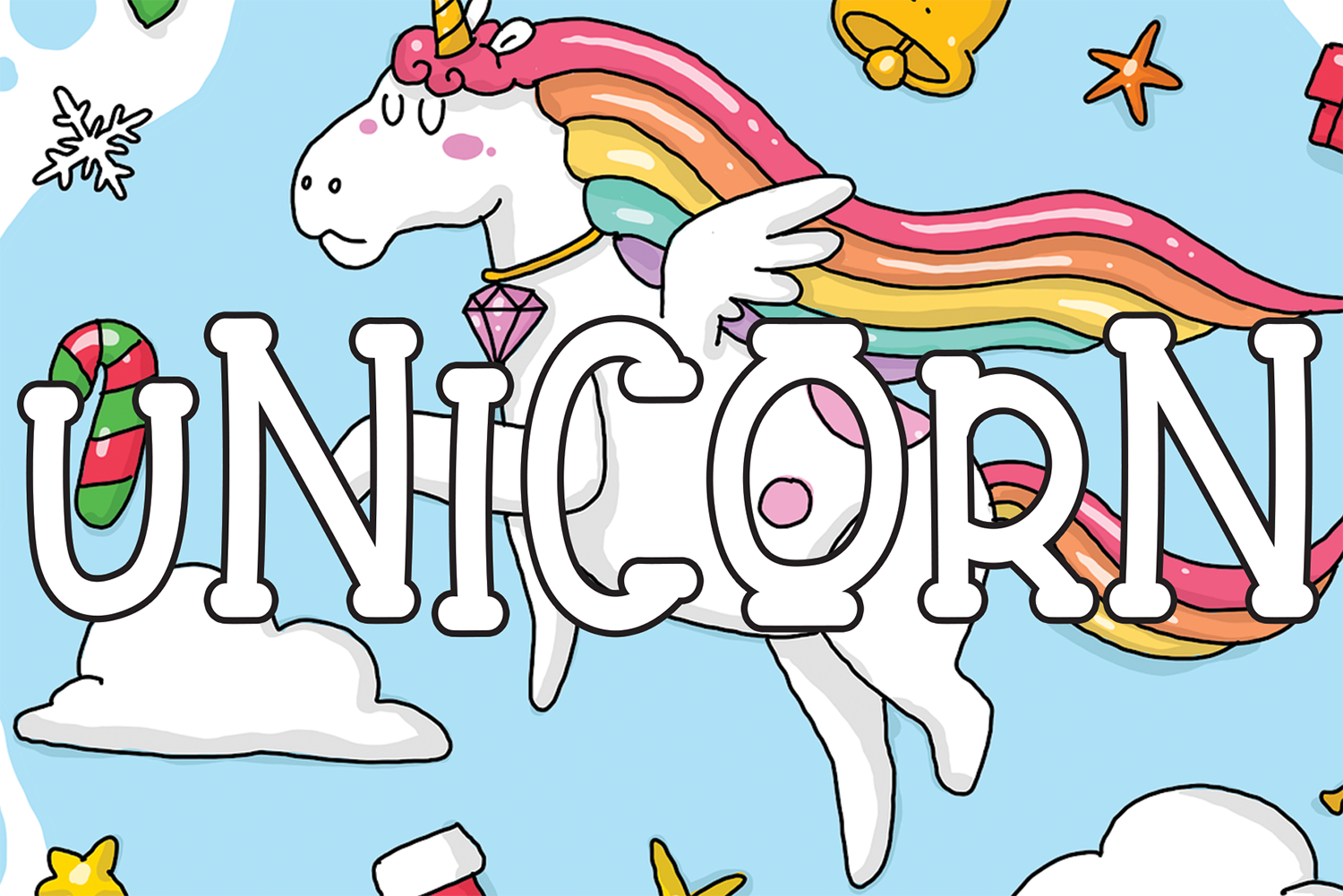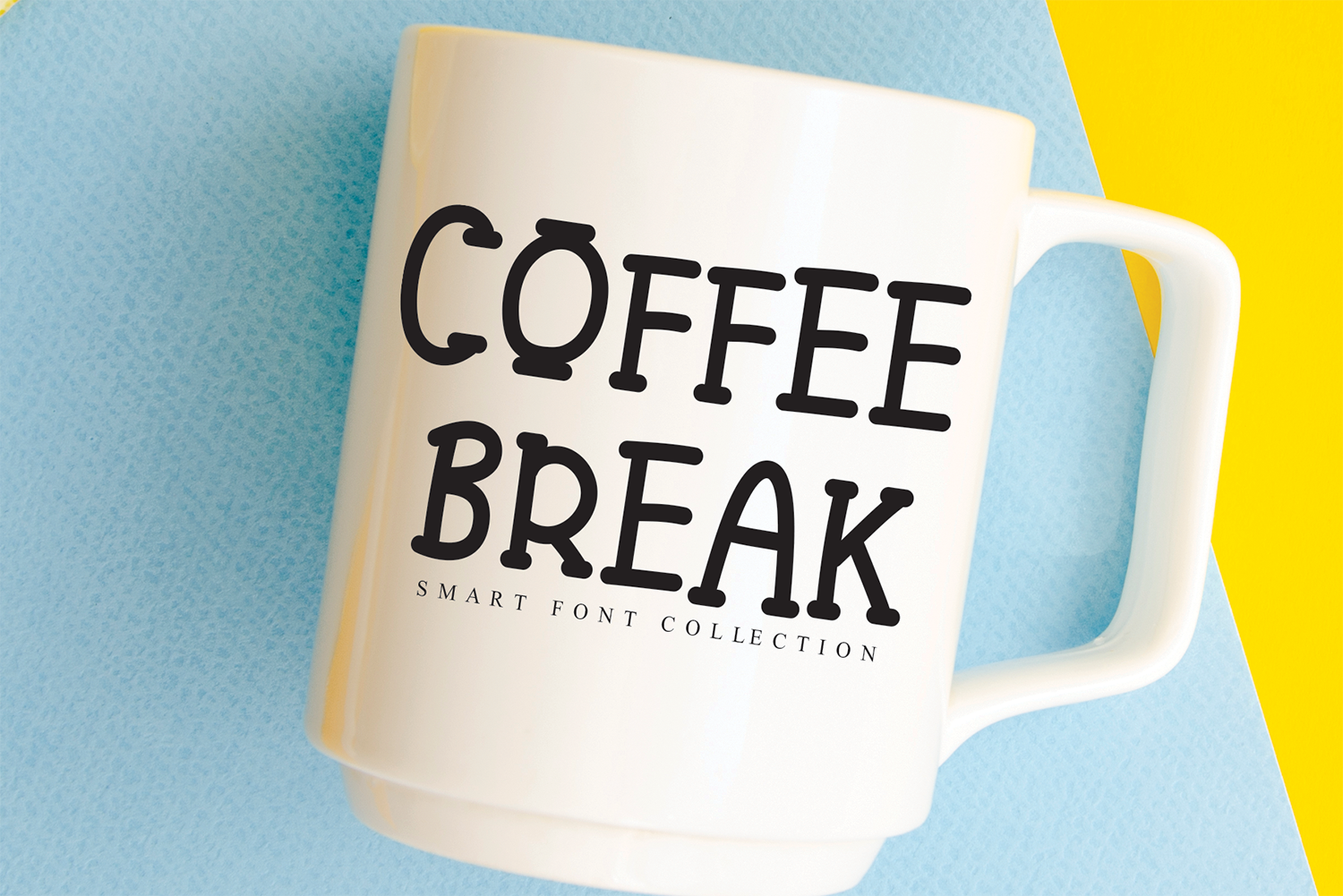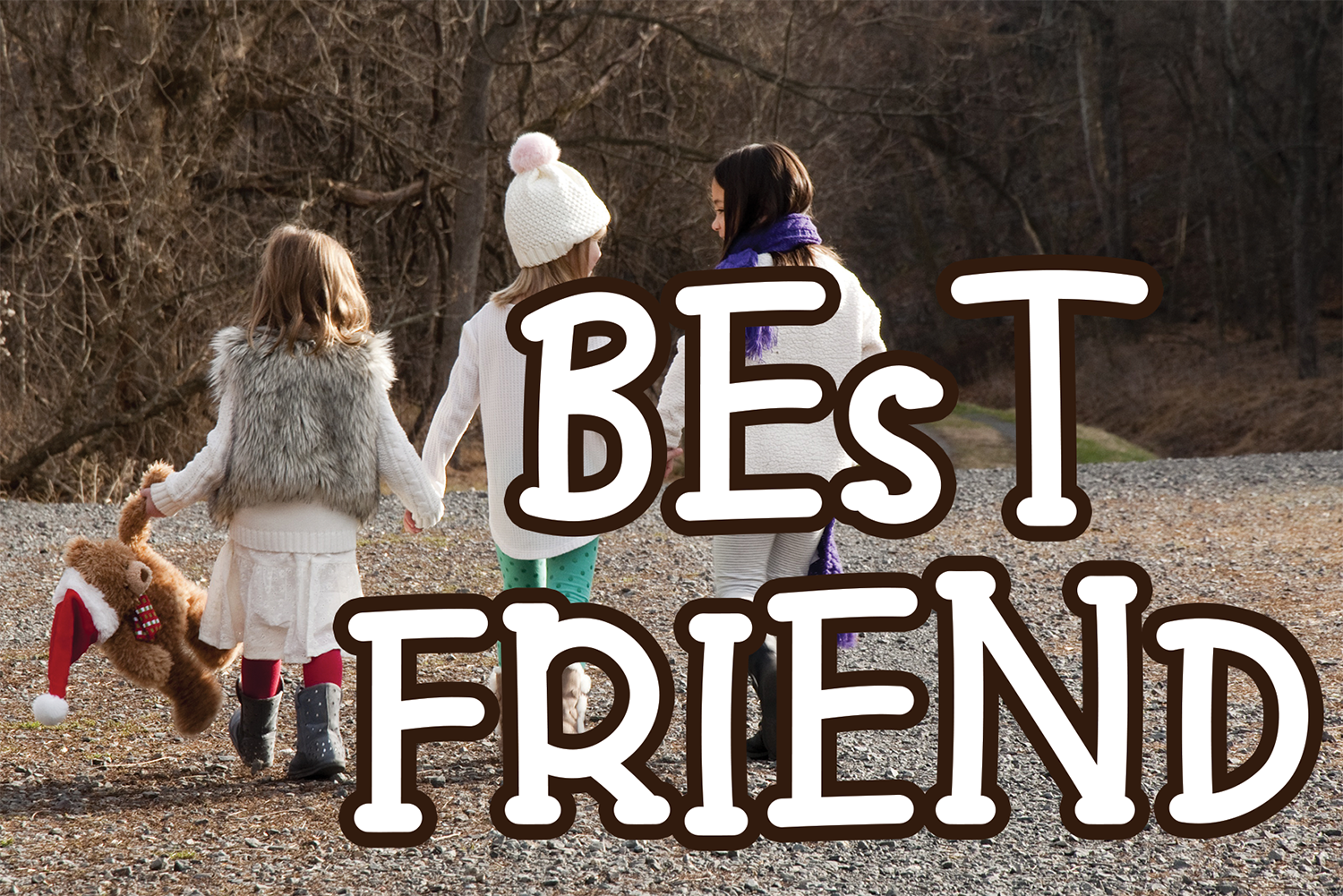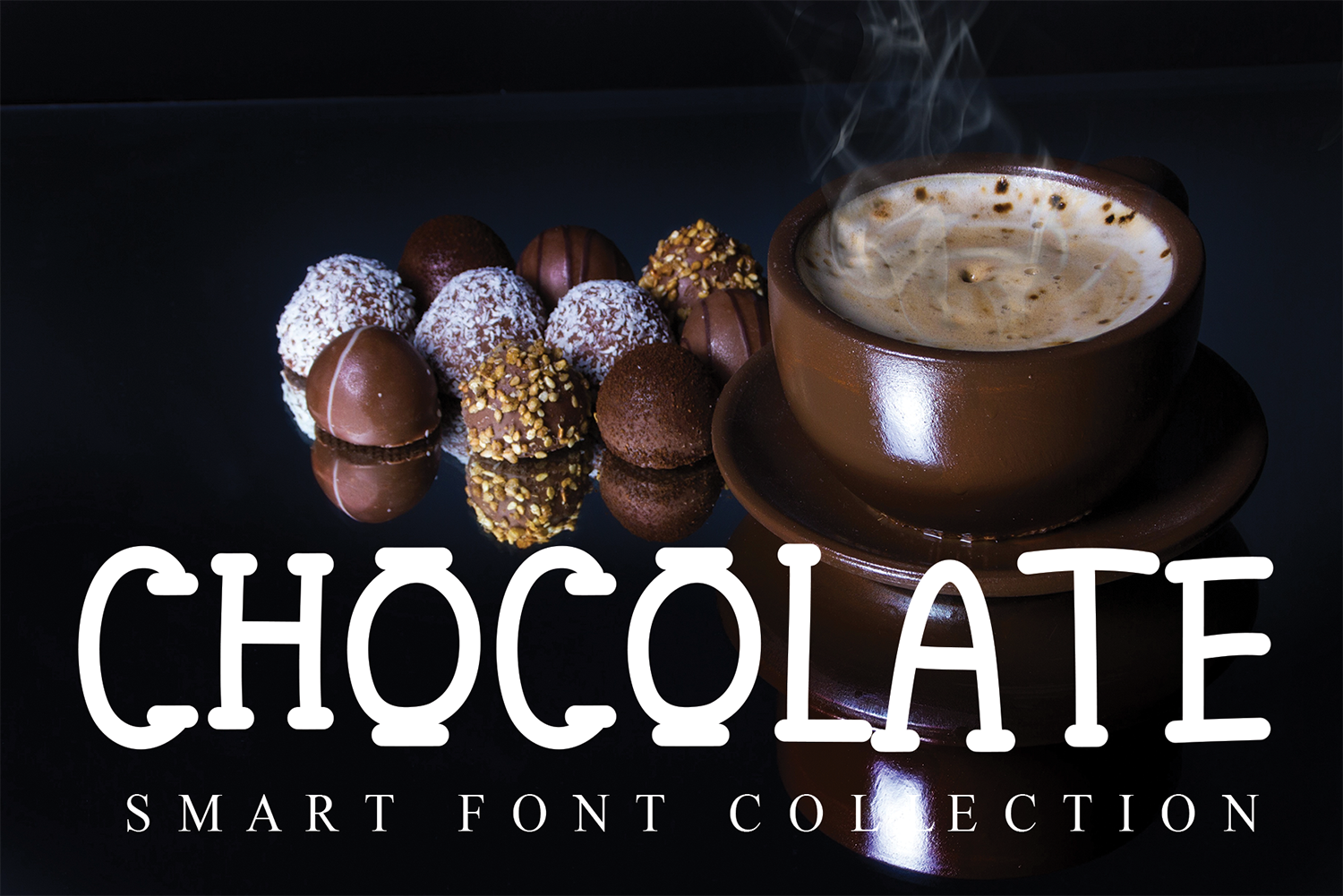
Funny Moments Free Font
Introducing Funny Moments: a delightfully eccentric and charming display font. Perfectly suited for cartoon-inspired designs, children’s games, or any project in need of a touch of whimsy. This font is an exceptional selection to infuse your creations with a touch of endearing charm. This free typeface was designed by a talentedΒ Scratchones Creative. If you like it don’t forget to check out the full version.